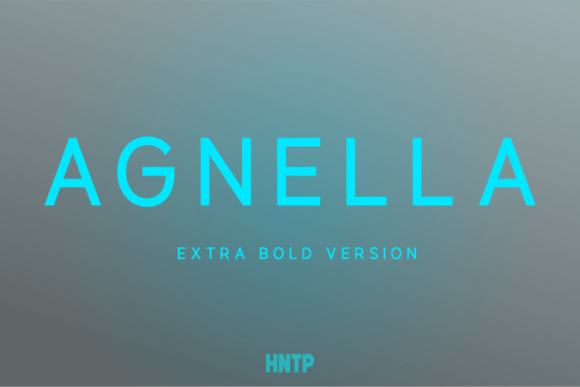
Font enthusiasts, prepare to be enticed by the captivating Agnella Extra Bold, a sans serif masterpiece that exudes elegance and power. Crafted with meticulous precision by Huntype, this font is a harmonious blend of simplicity and sophistication.
Agnella's distinctive vertical and horizontal cuts lend it an air of strength and stability, making it an ideal choice for designs that demand attention. Its bold strokes emanate confidence and authority, effortlessly capturing the essence of professionalism and impact.
Whether you're crafting stunning headlines that demand attention, designing compelling logos that make a lasting impression, or creating engaging marketing materials that resonate with your audience, Agnella Extra Bold is your font of choice. Its versatility knows no bounds, making it the perfect tool to elevate any design project to new heights.